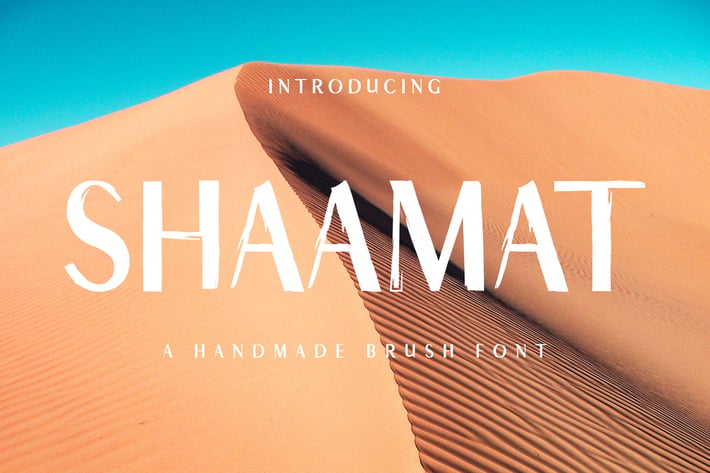
Shaamat Brush Font
Shaamat is a unique, lovely and stunning handwritten brush font perfectly managed with well-spaced and kerning that will help you visualize your forthcoming projects! It contains uppercase, lowercase, number, punctuation, symbols and support multilingual. Shaamat font is great for various projects like packaging, presentations, logo, headlines, lettering, posters, branding, quotes, titles, magazines headings, web layouts, advertising, invitations, packaging design, books, and nearly any creative design.
Shaamat Font Features:
- Uppercase Letters
- Lowercase Letters
- Support Multilingual ( Latin Supplement + Latin Extended A)